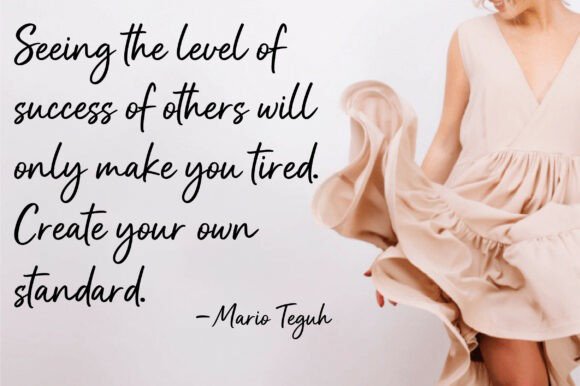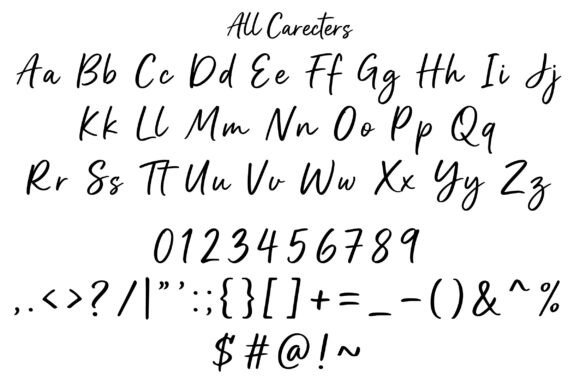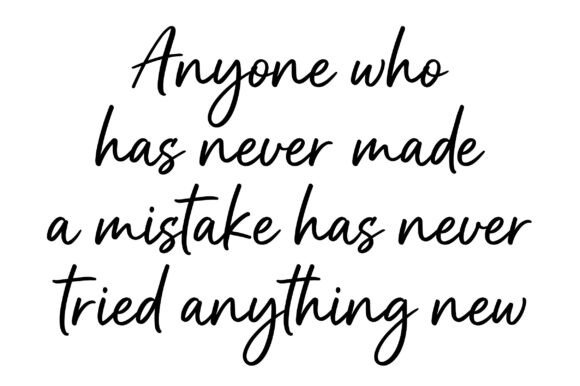
Introduction to Casual Handwriting Font
Have you ever stared at a blank page, trying to come up with the perfect phrase to express your creativity? For designers, finding the right font can be the key to unlocking a truly unique and engaging visual identity. And that’s where the Casual Handwriting Font comes in – a simple yet effective design resource that’s perfect for adding a personal touch to your creative projects.
With its smooth, relaxed style and soft curves, the Casual Handwriting Font is an ideal choice for designers looking to create a warm and friendly visual aesthetic. Whether you’re working on a social media design, an invitation, or a branding project, this font is sure to add a touch of personality to your work. And the best part? It’s available for free download, making it a valuable addition to any designer’s toolkit.
From its clean and easy-to-read design to its high-quality look, the Casual Handwriting Font is a versatile and reliable choice for designers of all levels. With its transparent background and modern handwritten style, it’s no wonder why this font has become a go-to resource for creative professionals looking to add a little extra something to their designs.
Key Features of Casual Handwriting Font
- Unique, cursive design perfect for creative projects and personal touch
- High-quality font with transparent background, ideal for design resources and backgrounds
- Supports a wide range of languages, making it a versatile design resource
- Comes in a single size, making it easy to use in various design applications
- Perfect for adding a personal touch to invitations, greeting cards, and other creative projects
Honest Review: Casual Handwriting Font
I recently had the chance to experiment with the Casual Handwriting Font, and I must say it’s a fantastic addition to any designer’s toolkit. This high-quality font is perfect for creating a personal touch in your design projects, and it’s available for free download, making it a valuable resource for designers on a budget.
One of the things that I love about the Casual Handwriting Font is its versatility. It’s great for headings, titles, and even body text, and it works beautifully with a transparent background, allowing the text to blend seamlessly with any design.
- Works well with transparent background
- Great for headings, titles, and body text
- No customization options available
- May not be suitable for formal or professional designs
Overall, I’m thoroughly impressed with the Casual Handwriting Font. It’s a fantastic addition to any designer’s toolkit, and its free download makes it an excellent resource for designers working on creative projects. I highly recommend giving it a try!
Tips for Getting the Most Out of Casual Handwriting Font
The Casual Handwriting Font is perfect for designing invitations, greeting cards, and other social media graphics. It’s also great for creating a personal touch in your blog or website. With its high-quality design and transparent background options, you can create a professional-looking design that stands out from the crowd.